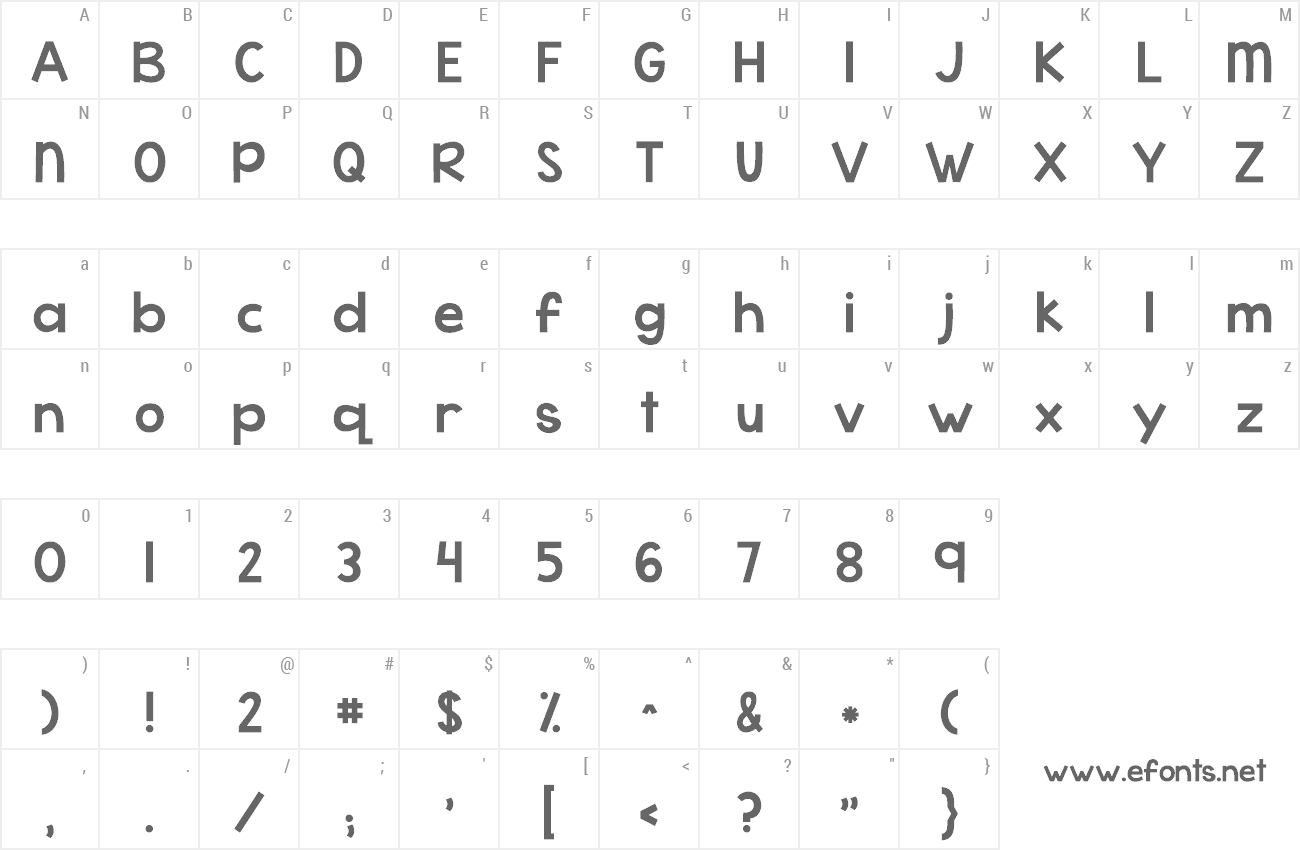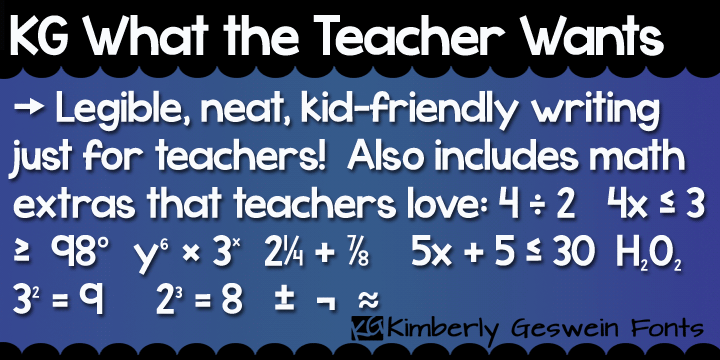
| Font name: | KG What the Teacher Wants |
| Author: | Kimberly Geswein |
| Note by Kimberly Geswein | |
This special font was created especially for an elementary teacher, Rachelle Smith. Rachelle's highly-popular teaching blog, What the Teacher Wants (http://whattheteacherwants.blogspot.com/) is a great resource for elementary teachers. She also sells educational products at Teachers Pay Teachers: http://www.teacherspayteachers.com/Store/Rachelle-Smith This font is exactly "What the Teacher Wants"- it is neat, legible, friendly, and contains enough glyphs to cover 86 languages and little extras like math symbols! For commercial licensing, please see http://kimberlygeswein.com Thanks! |